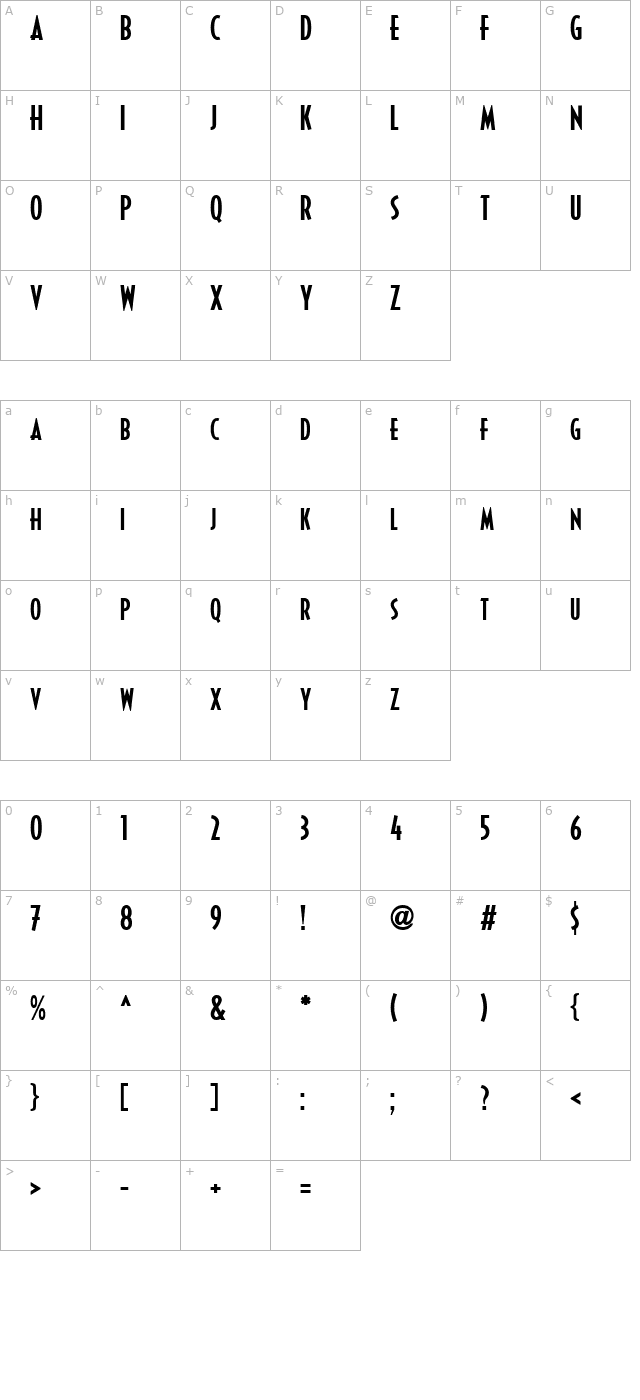
Andy/Decotura Font
Andy/Decotura Font - The game boy game pokémon was originally released in red. Web “red version”, and the text below it, is in decotura. Comes in two weights in regular and italic styles. Web making the web more beautiful, fast, and open through great typography
Web making the web more beautiful, fast, and open through great typography Web “red version”, and the text below it, is in decotura. The game boy game pokémon was originally released in red. Comes in two weights in regular and italic styles.
Web “red version”, and the text below it, is in decotura. Comes in two weights in regular and italic styles. Web making the web more beautiful, fast, and open through great typography The game boy game pokémon was originally released in red.
Decotura ICG Regular truetype font
Web making the web more beautiful, fast, and open through great typography Web “red version”, and the text below it, is in decotura. Comes in two weights in regular and italic styles. The game boy game pokémon was originally released in red.
Web “red version”, and the text below it, is in decotura. The game boy game pokémon was originally released in red. Comes in two weights in regular and italic styles. Web making the web more beautiful, fast, and open through great typography
The game boy game pokémon was originally released in red. Web making the web more beautiful, fast, and open through great typography Web “red version”, and the text below it, is in decotura. Comes in two weights in regular and italic styles.
Decotura Inline Fonts
The game boy game pokémon was originally released in red. Comes in two weights in regular and italic styles. Web making the web more beautiful, fast, and open through great typography Web “red version”, and the text below it, is in decotura.
Comes in two weights in regular and italic styles. Web making the web more beautiful, fast, and open through great typography The game boy game pokémon was originally released in red. Web “red version”, and the text below it, is in decotura.
Web making the web more beautiful, fast, and open through great typography Web “red version”, and the text below it, is in decotura. The game boy game pokémon was originally released in red. Comes in two weights in regular and italic styles.
Comes in two weights in regular and italic styles. Web “red version”, and the text below it, is in decotura. Web making the web more beautiful, fast, and open through great typography The game boy game pokémon was originally released in red.
The game boy game pokémon was originally released in red. Web “red version”, and the text below it, is in decotura. Web making the web more beautiful, fast, and open through great typography Comes in two weights in regular and italic styles.
Comes in two weights in regular and italic styles. Web making the web more beautiful, fast, and open through great typography Web “red version”, and the text below it, is in decotura. The game boy game pokémon was originally released in red.
Web “Red Version”, And The Text Below It, Is In Decotura.
Comes in two weights in regular and italic styles. The game boy game pokémon was originally released in red. Web making the web more beautiful, fast, and open through great typography